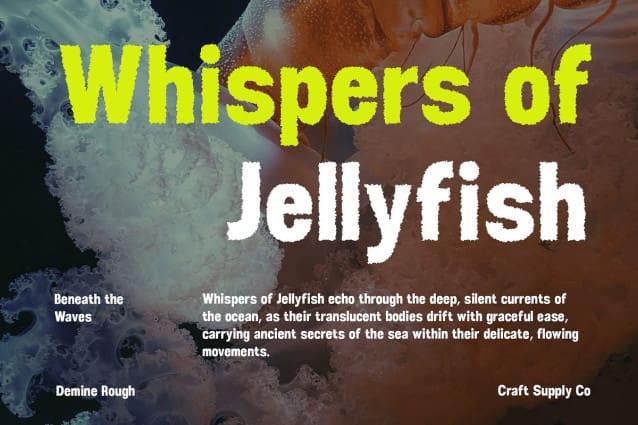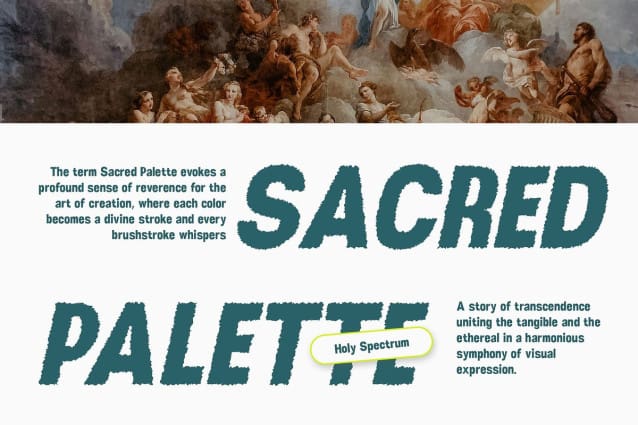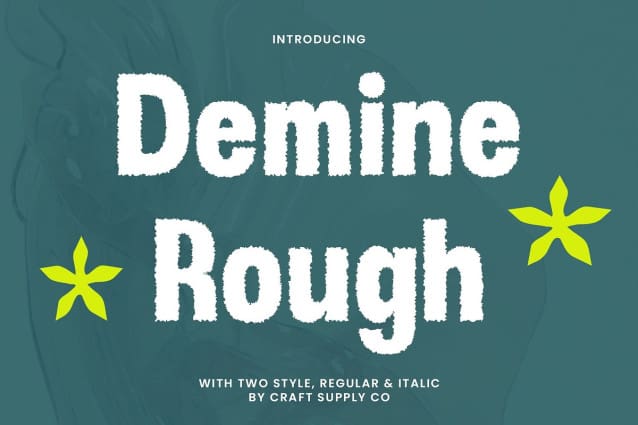
Demine Rough Font
Demine Rough is a modern sans-serif font featuring a bold, condensed design that combines strength and space efficiency. The narrow, robust form ensures that your text makes a powerful impact in compact spaces, ideal for designs requiring high visibility in minimal layouts.
Rough Effect for Industrial Texture and Personality What makes Demine Rough truly stand out is its rough effect, which introduces gritty and textured details to the font. These rugged elements evoke a sense of industrial strength and raw energy, giving the typeface an edgy, dynamic character. This unique texture enhances the font’s visual appeal, adding an element of authenticity and a sense of handcrafted quality that makes it perfect for designs with a bold, unconventional vibe.
Versatile Design for Various Creative Projects Demine Rough’s striking appearance makes it highly versatile, able to adapt to a wide range of design applications. Whether you’re creating posters, branding materials, or promotional designs, its condensed form and strong personality ensure it stands out in any context. The rough texture, combined with the bold, modern design, makes it ideal for projects that want to convey power, confidence, and a sense of urban, industrial energy.